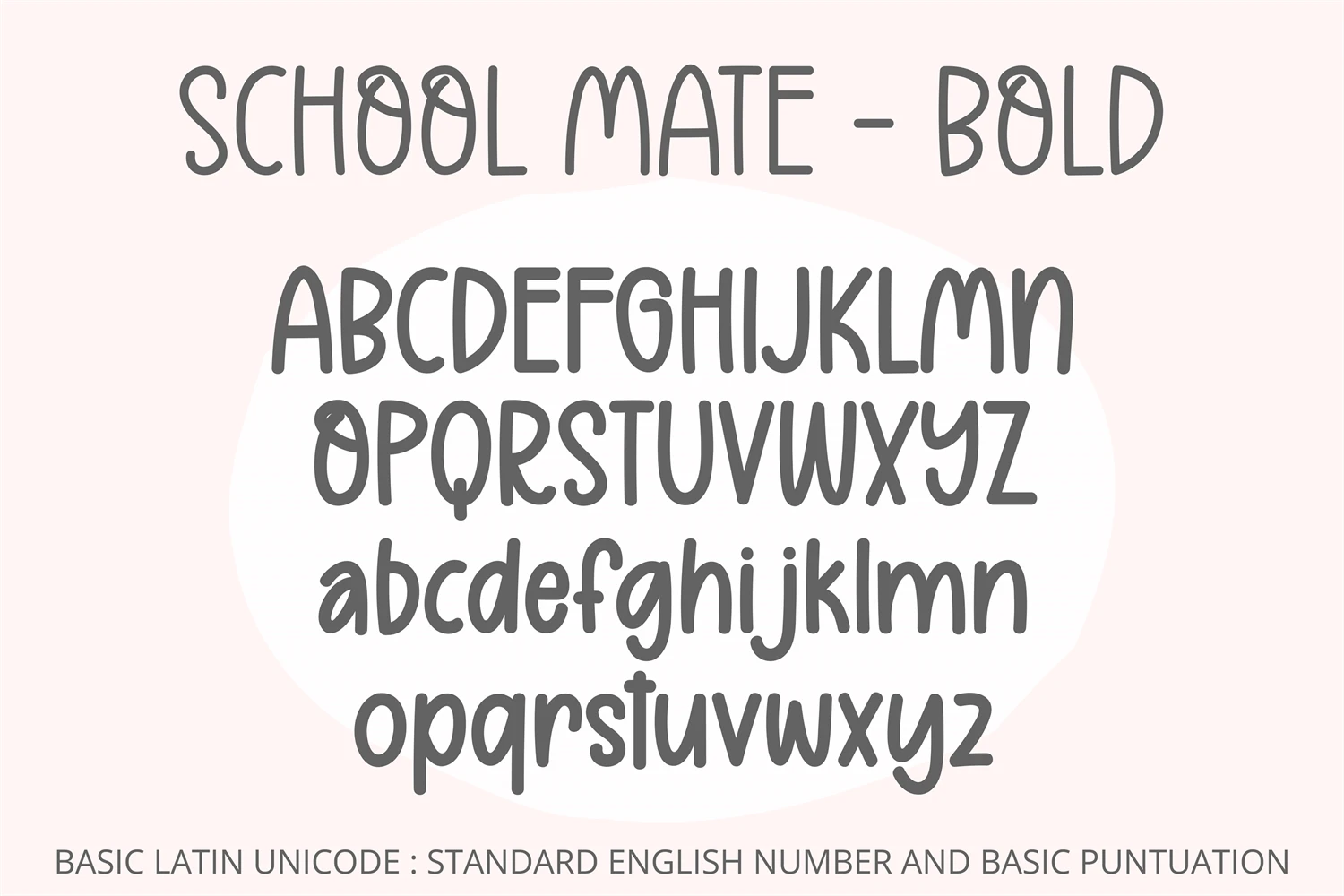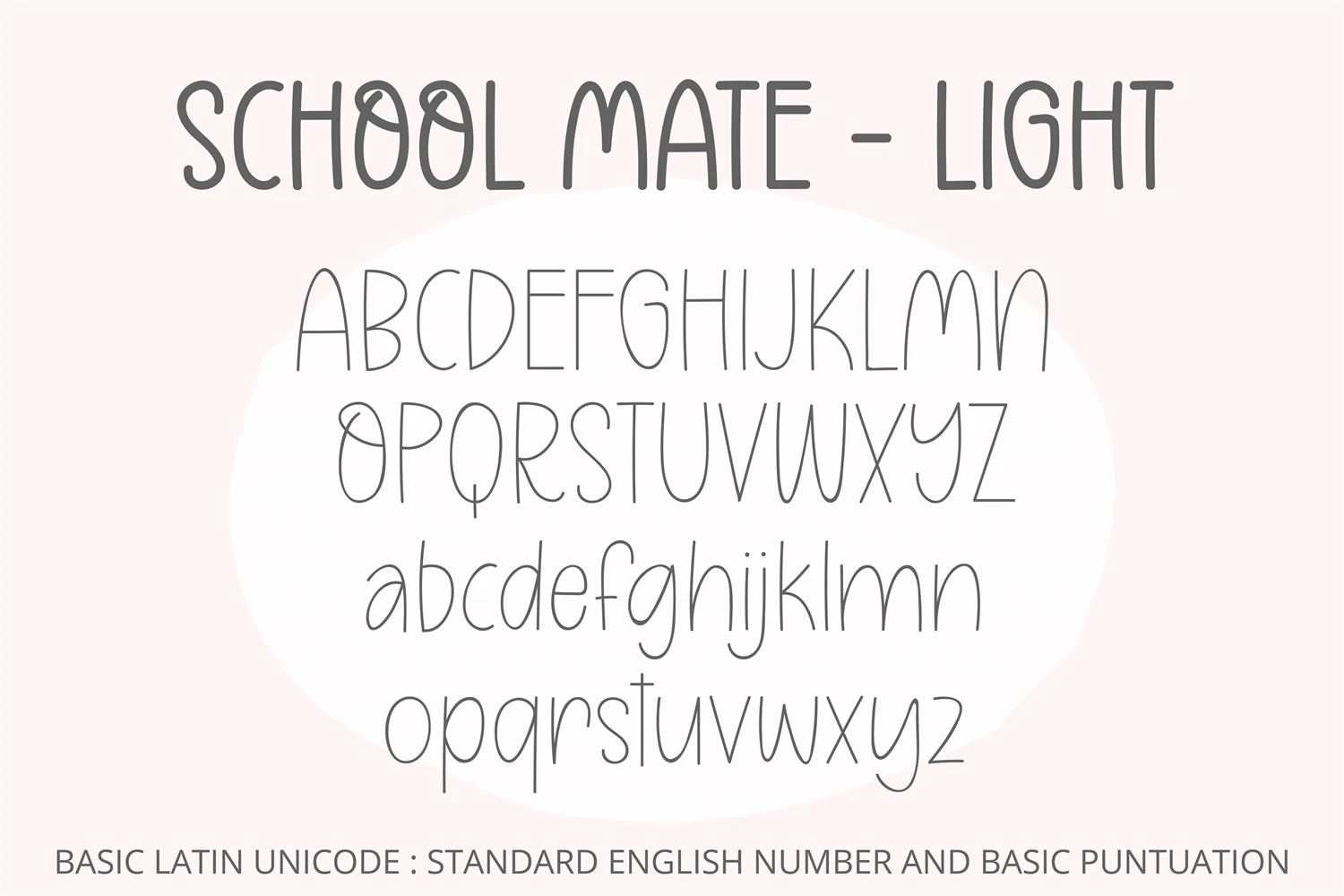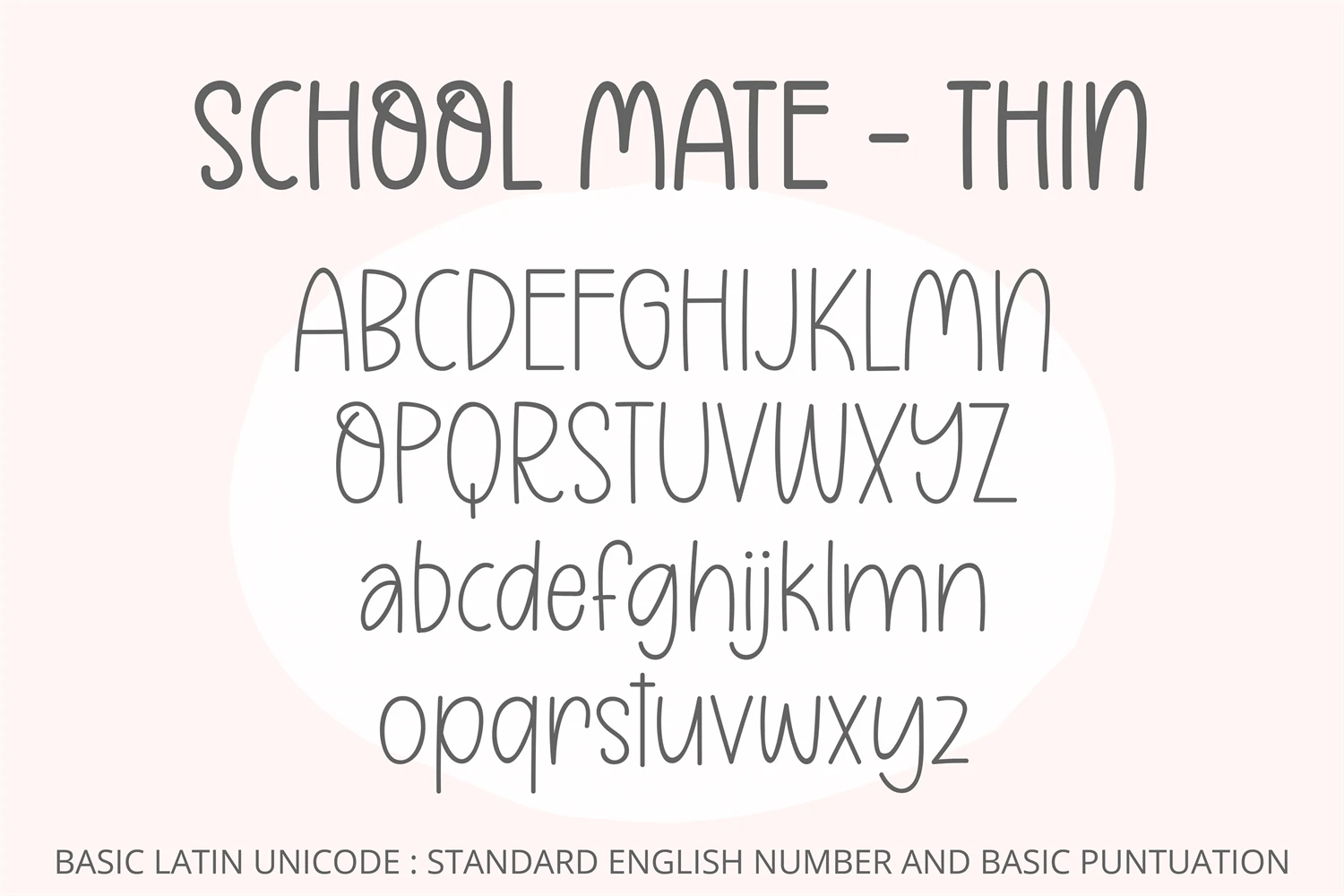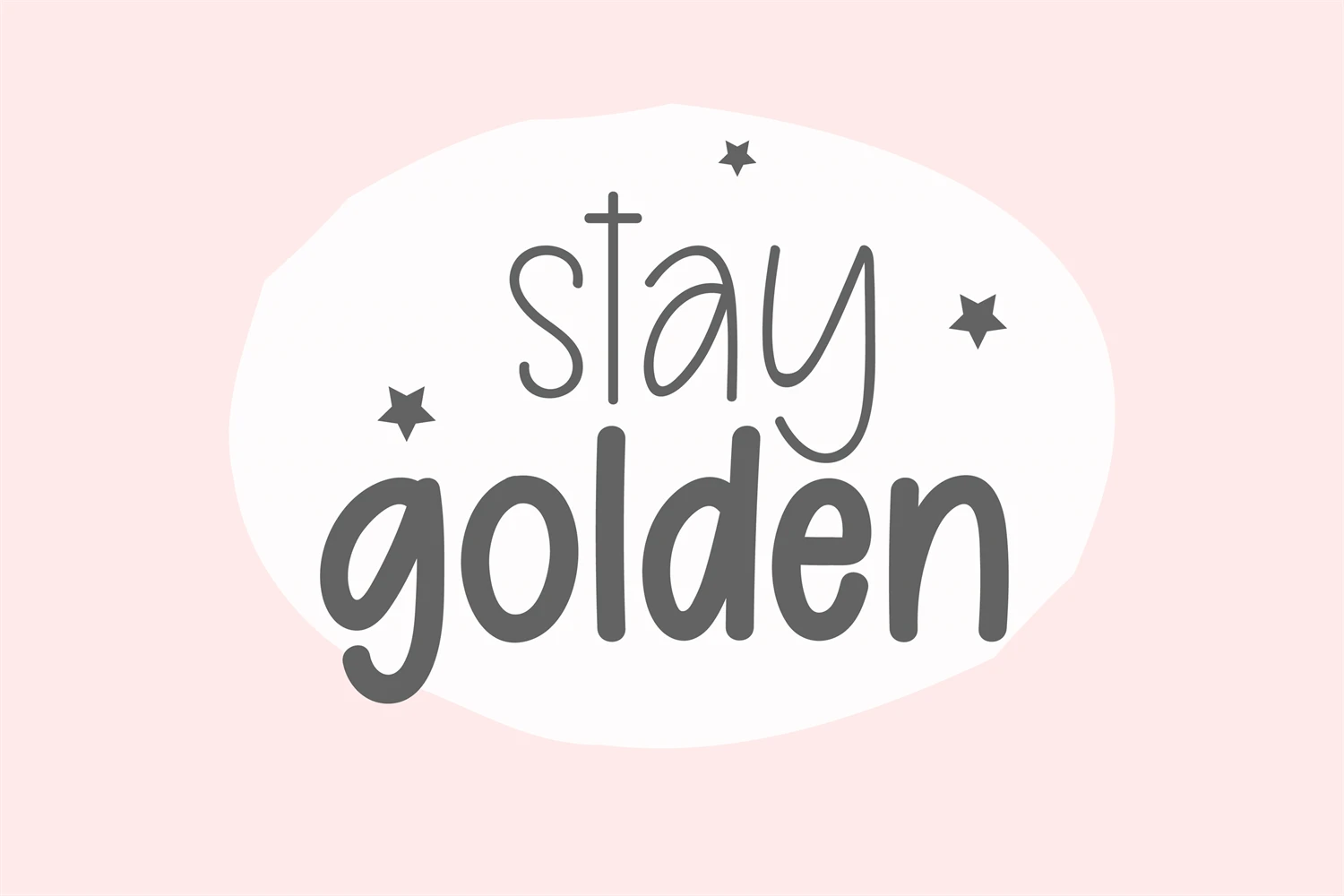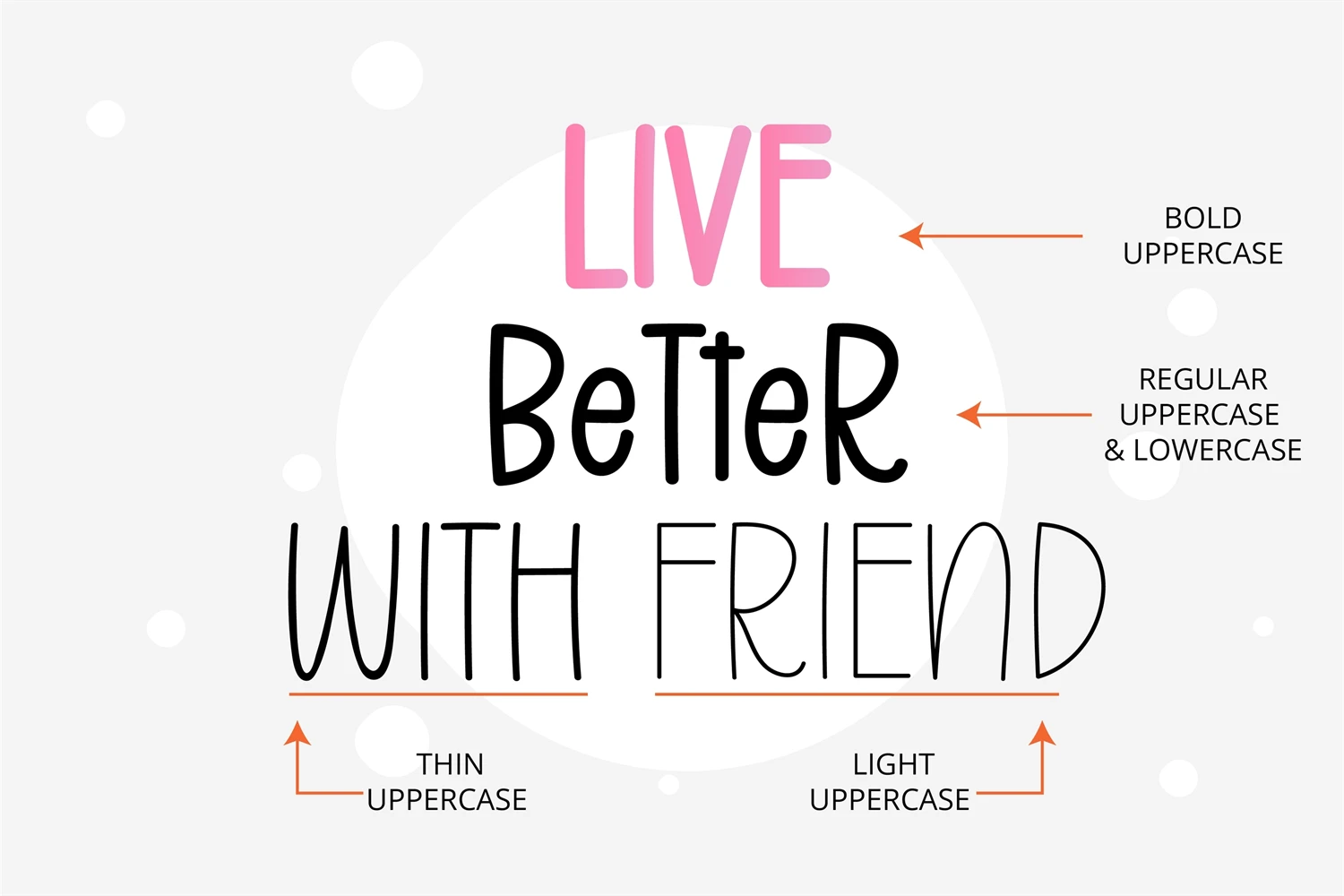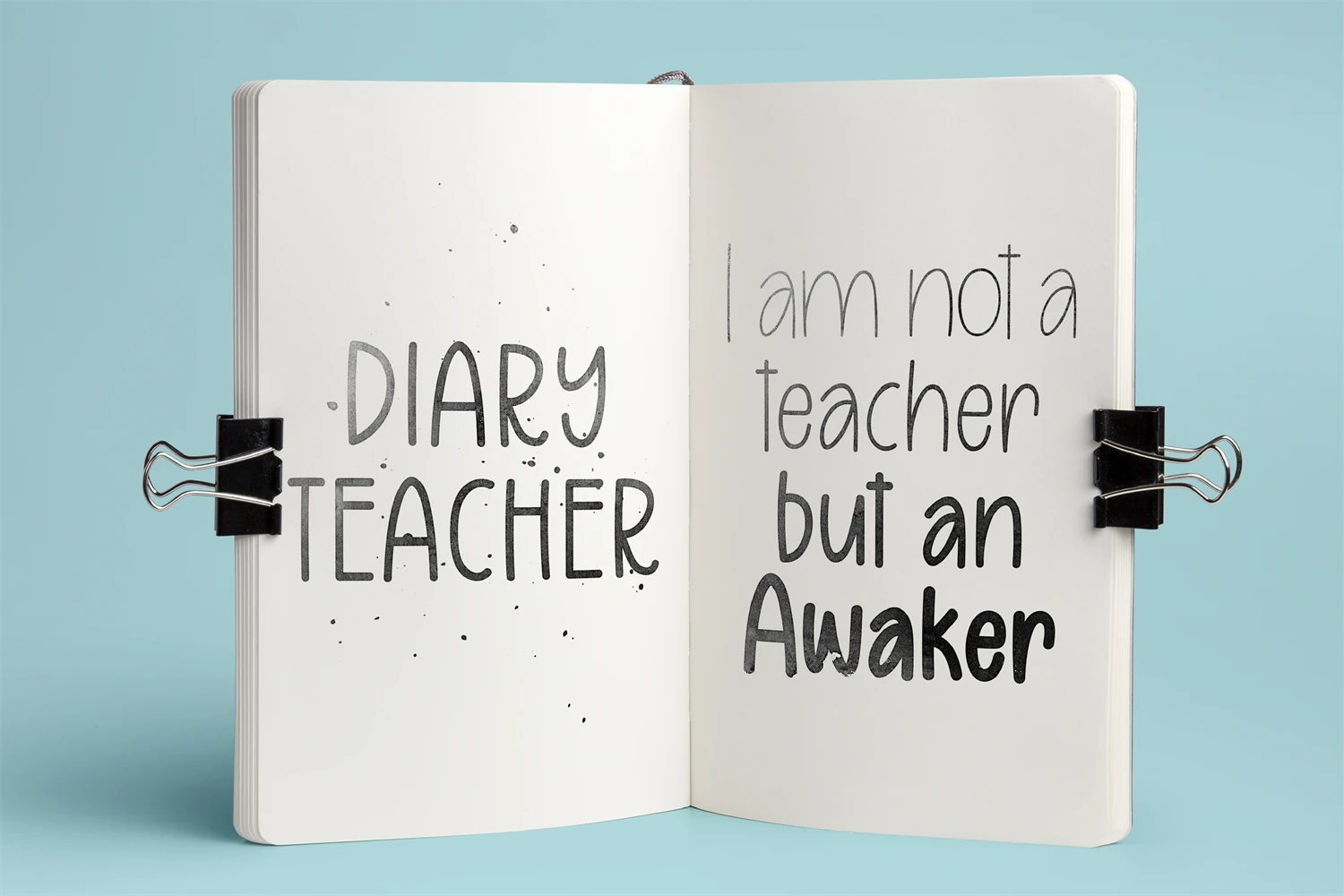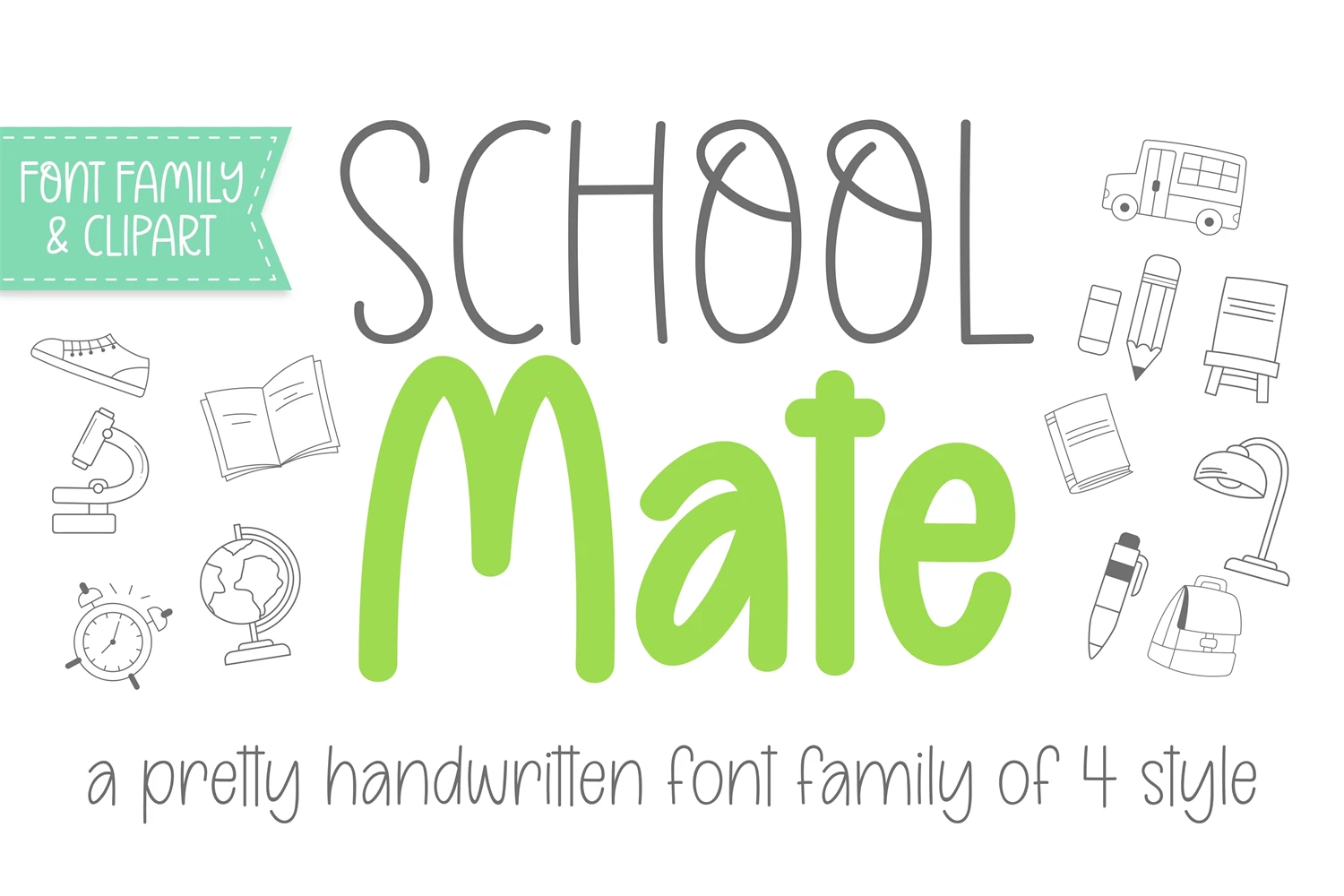
School Mate is a cute and relaxed handwritten family font. Its natural and unique style makes it suitable for a variety of design ideas. Add it confidently to your projects, and you will love the results.